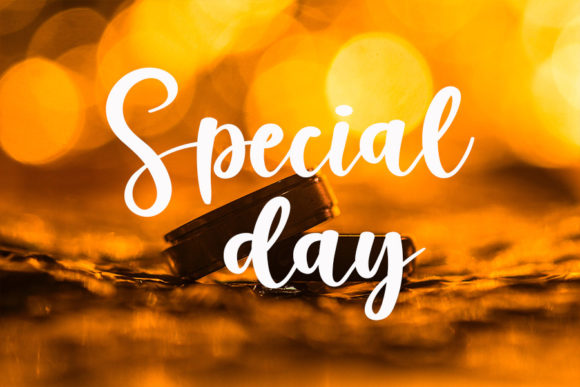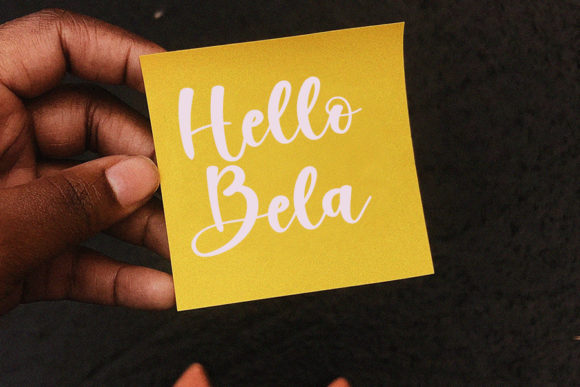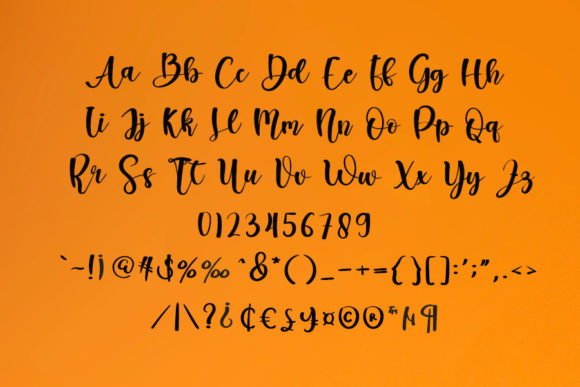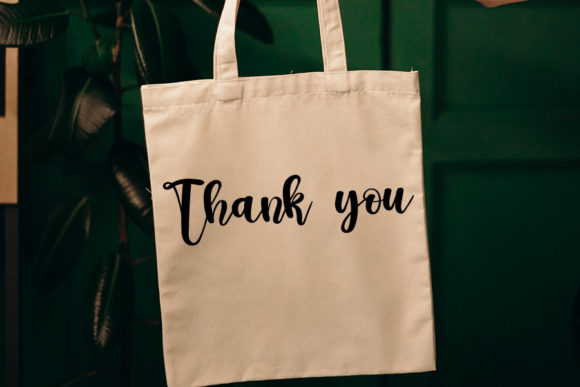
Honeymoon Font
About Honeymoon Font
Honeymoon is a friendly handwritten font, carefully designed to become a true favorite. It maintains its classy calligraphic influences while feeling contemporary and fresh.